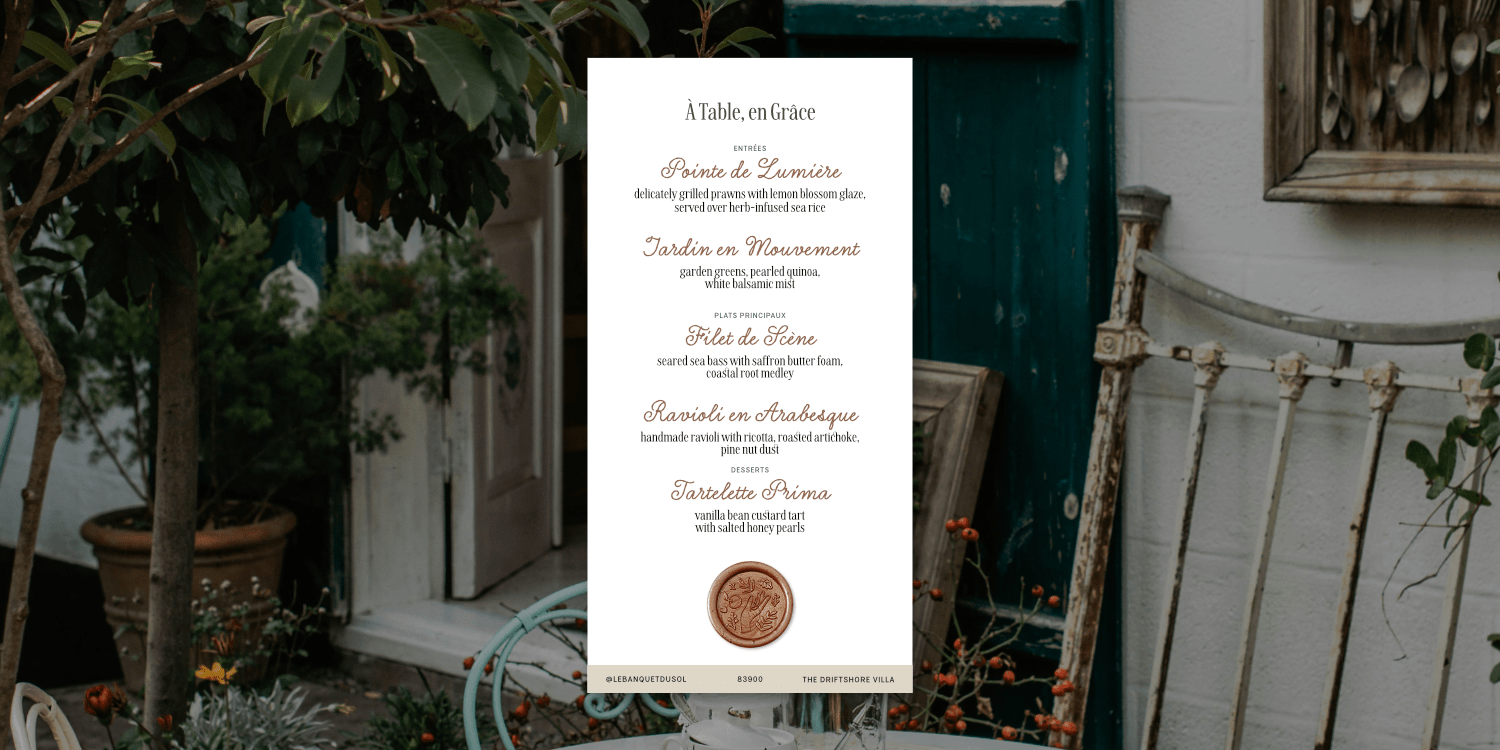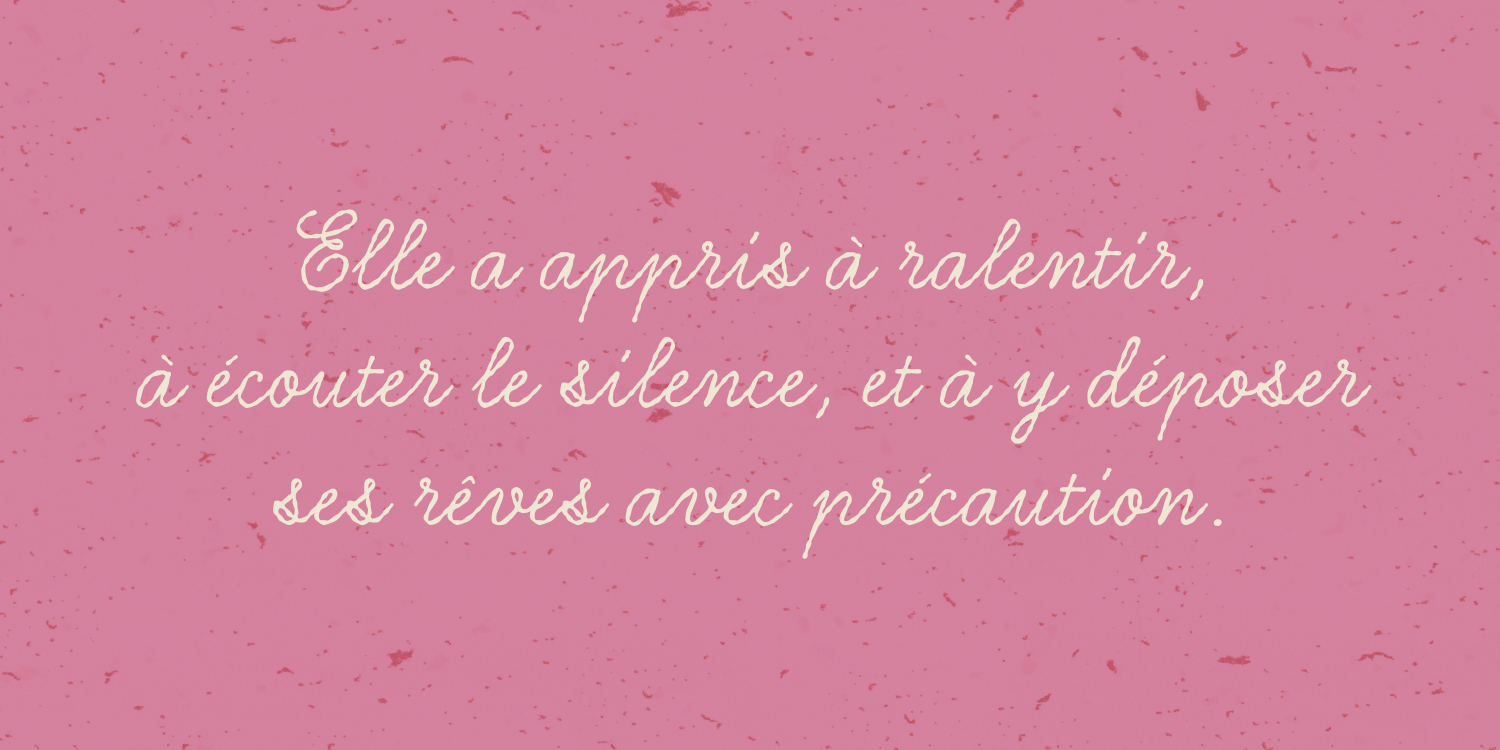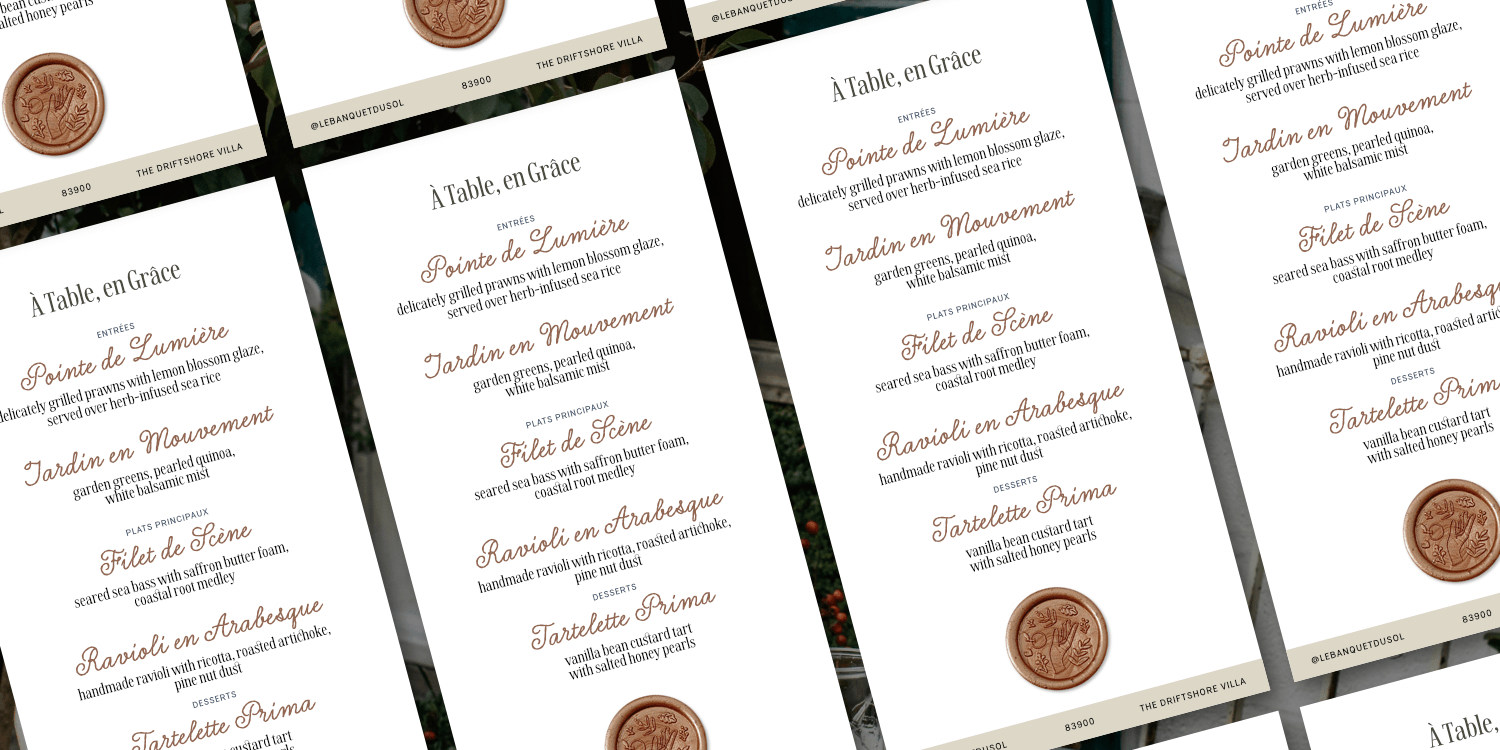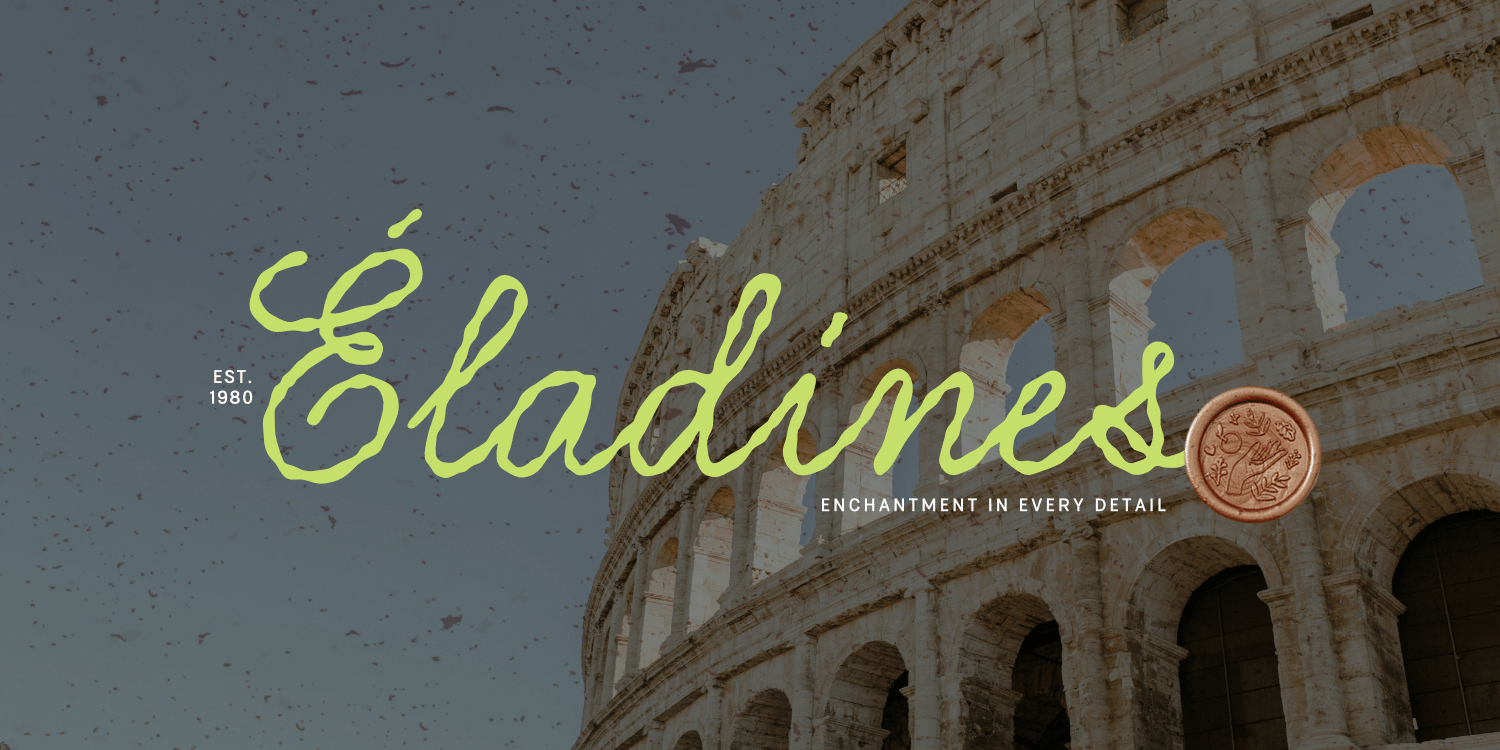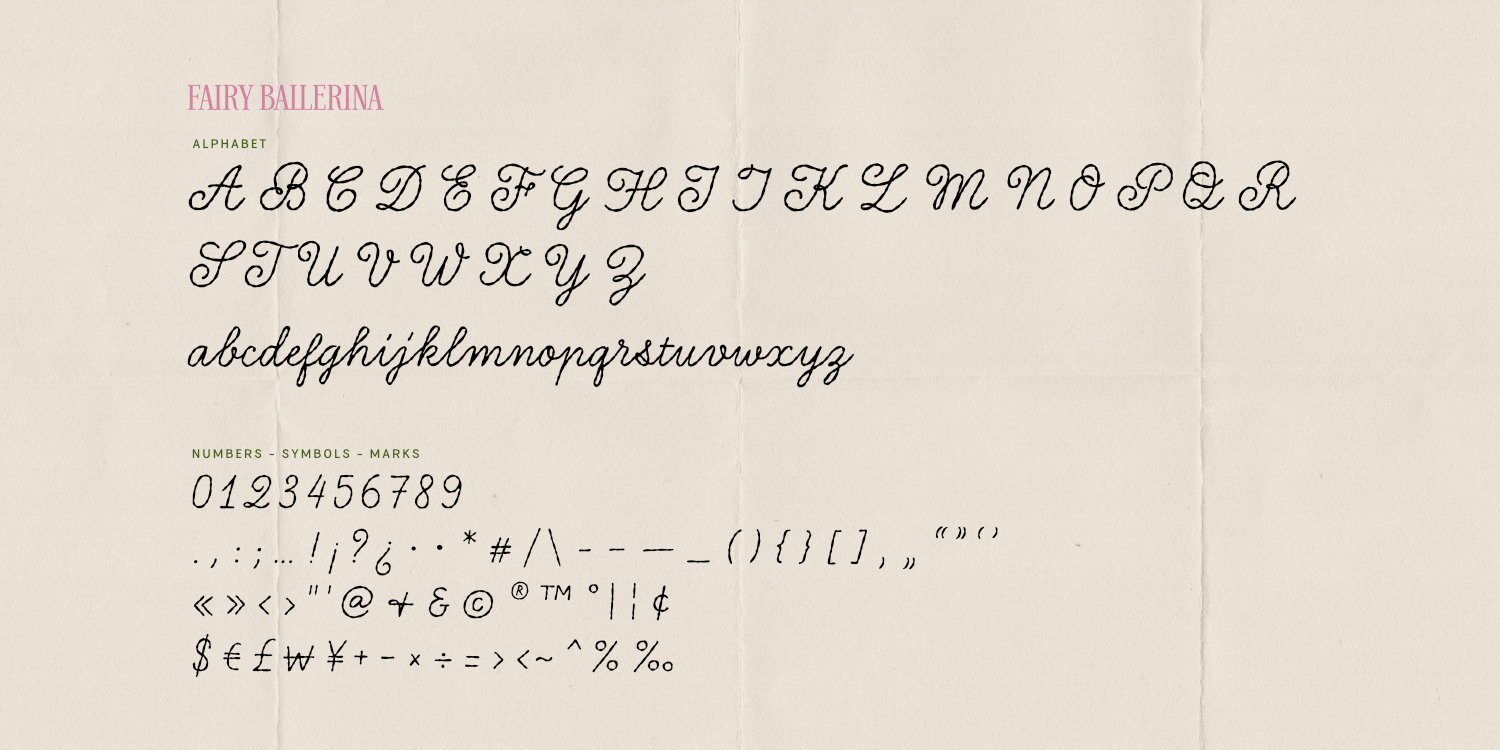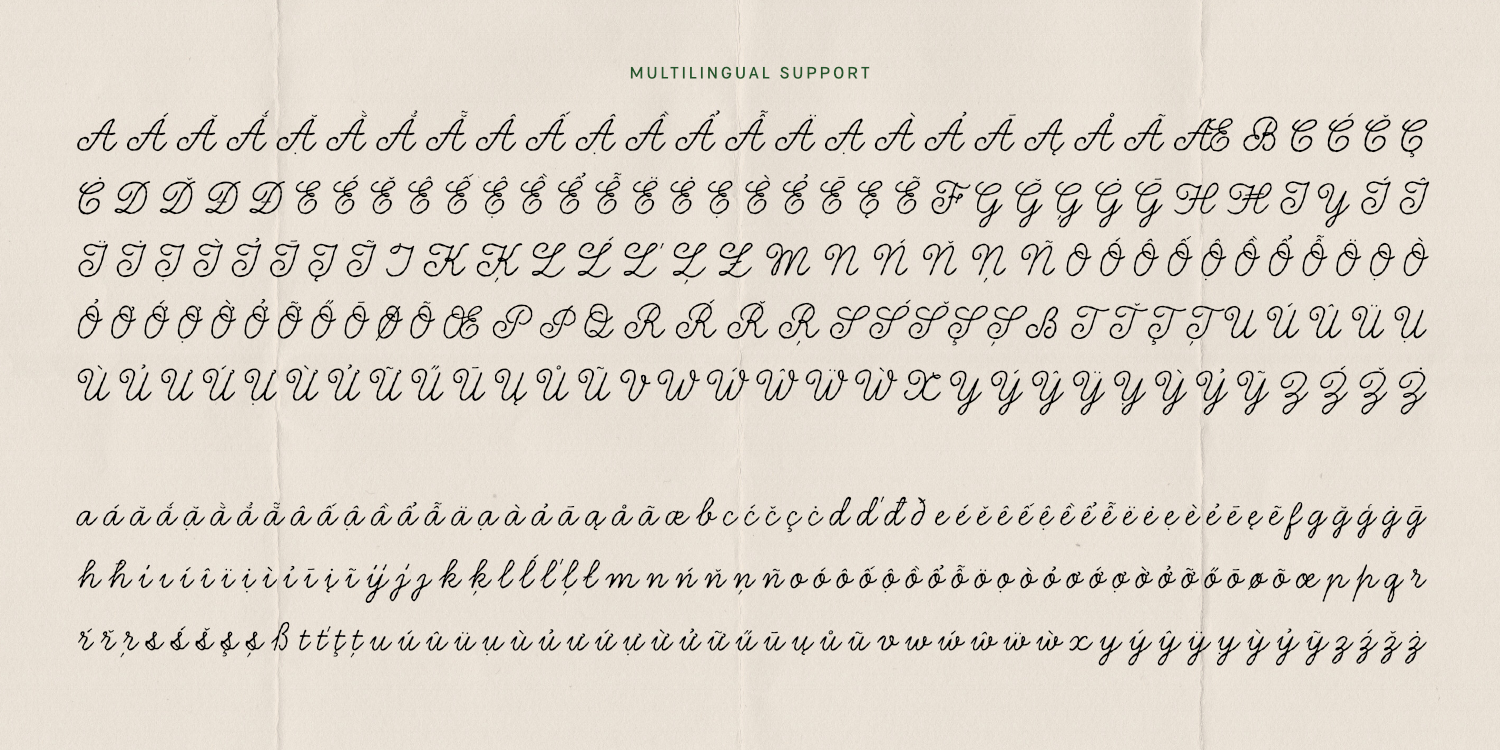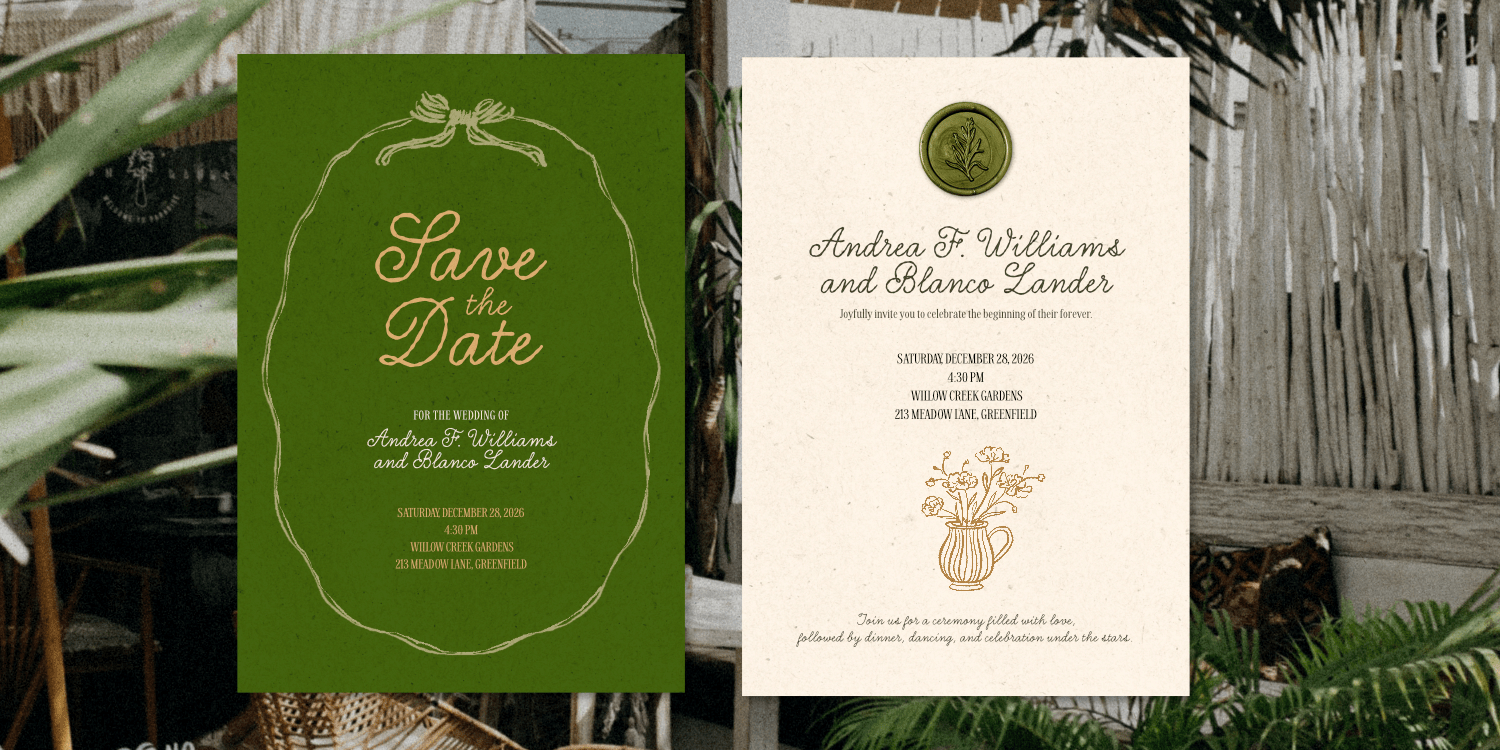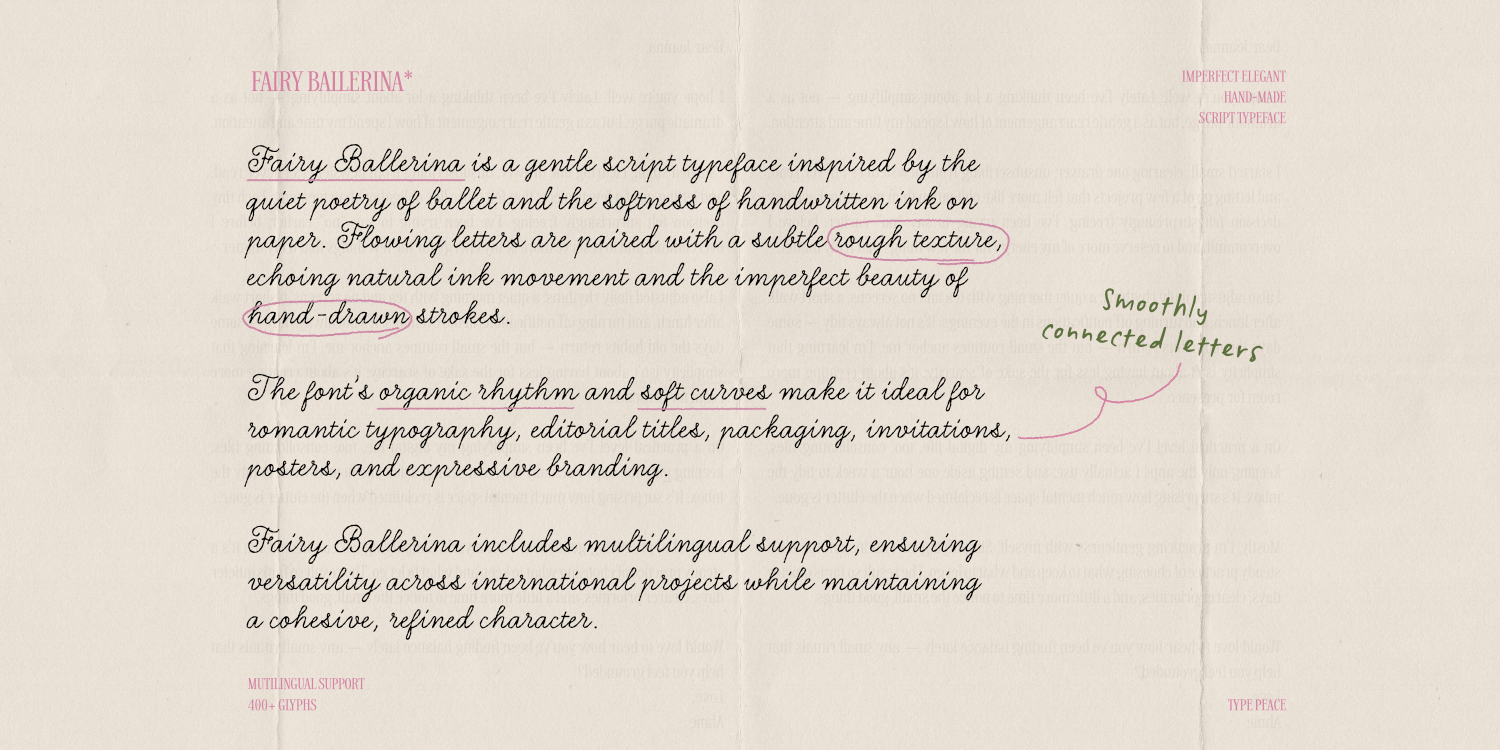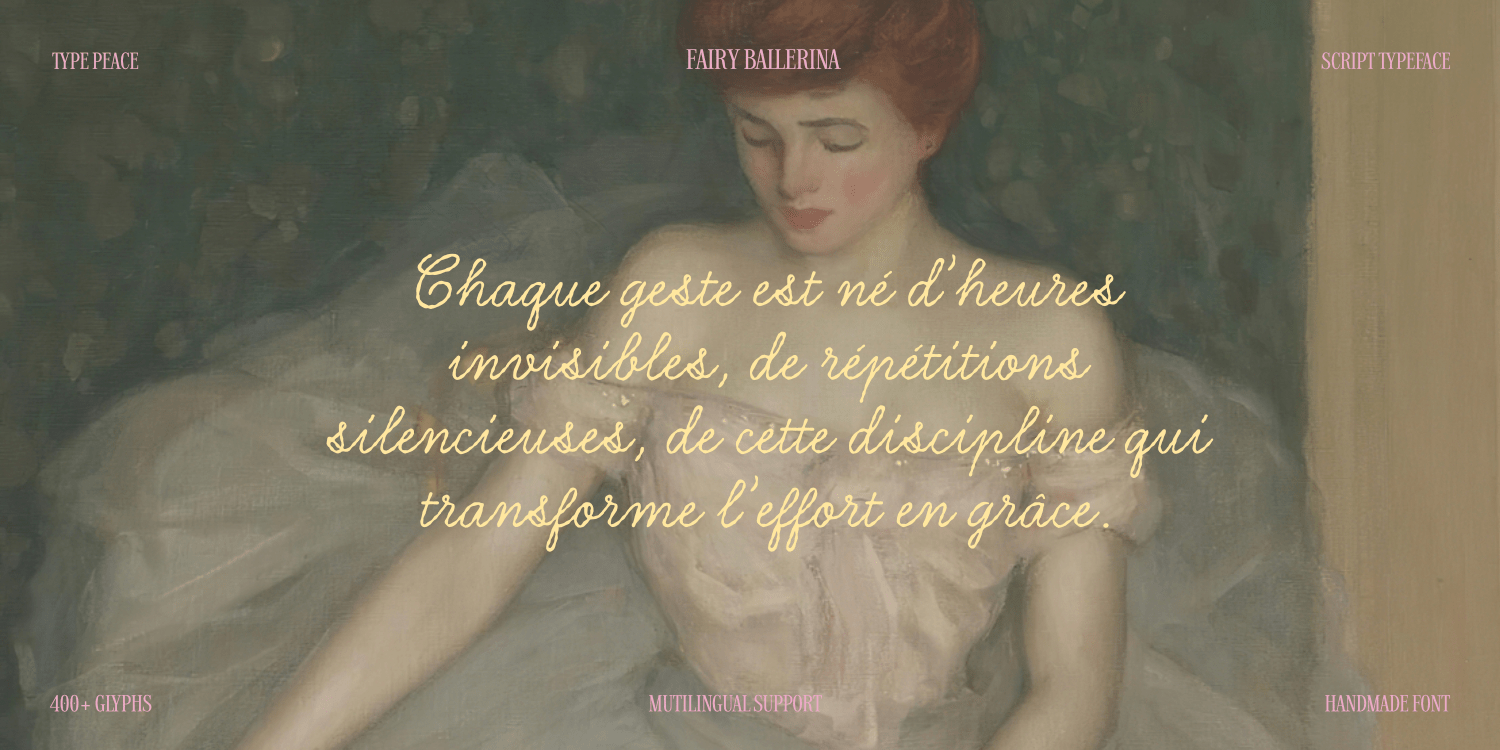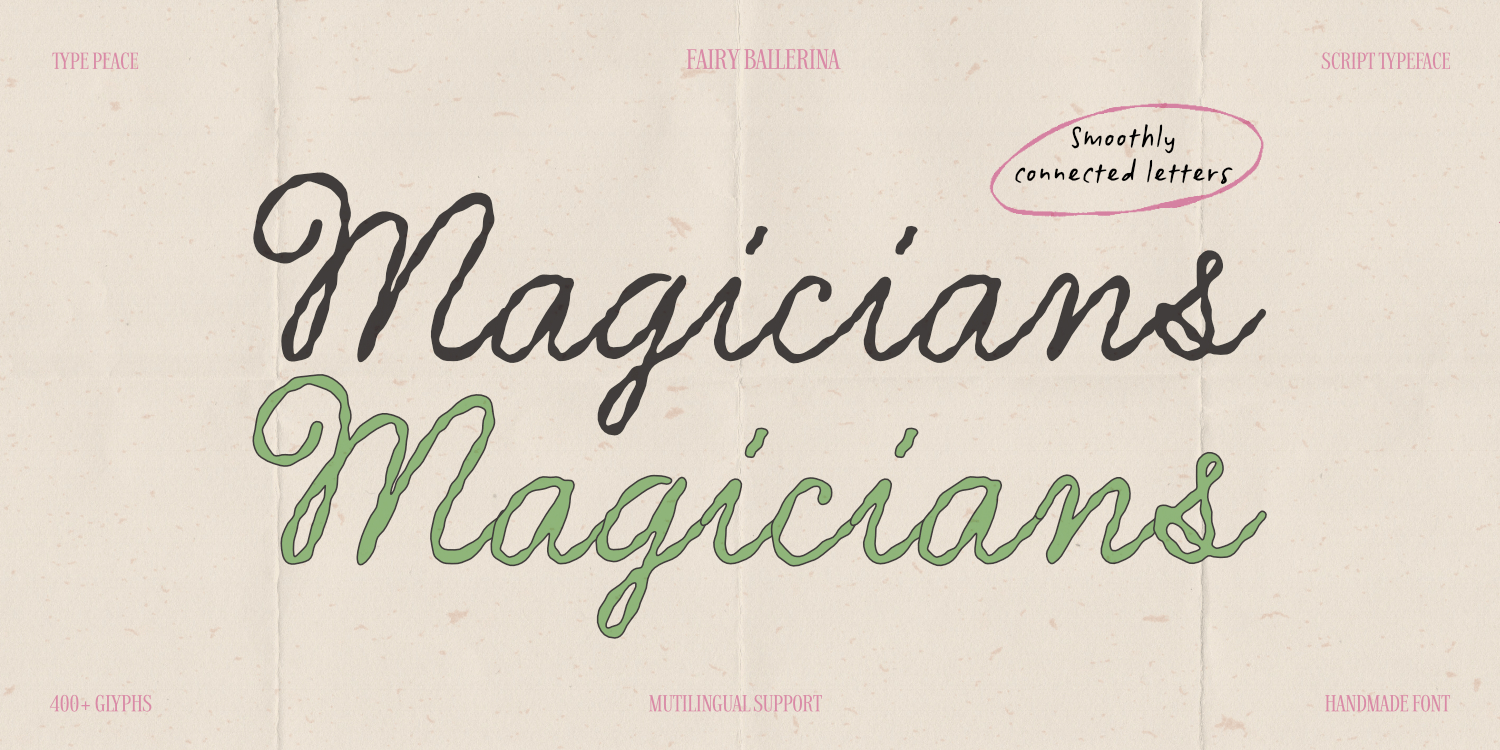
Fairy Ballerina
Font Family by type peace
Fairy Ballerina is a gentle script typeface inspired by the quiet poetry of ballet and the softness of handwritten ink on paper. Flowing letters are paired with a subtle rough texture, echoing natural ink movement and the imperfect beauty of hand-drawn strokes.
The font’s organic rhythm and soft curves make it ideal for romantic typography, editorial titles, packaging, invitations, posters, and expressive branding.
• Two weights: Regular and Bold
• Includes numerals, punctuation marks and symbols
• Multilingual support with over 400 glyphs